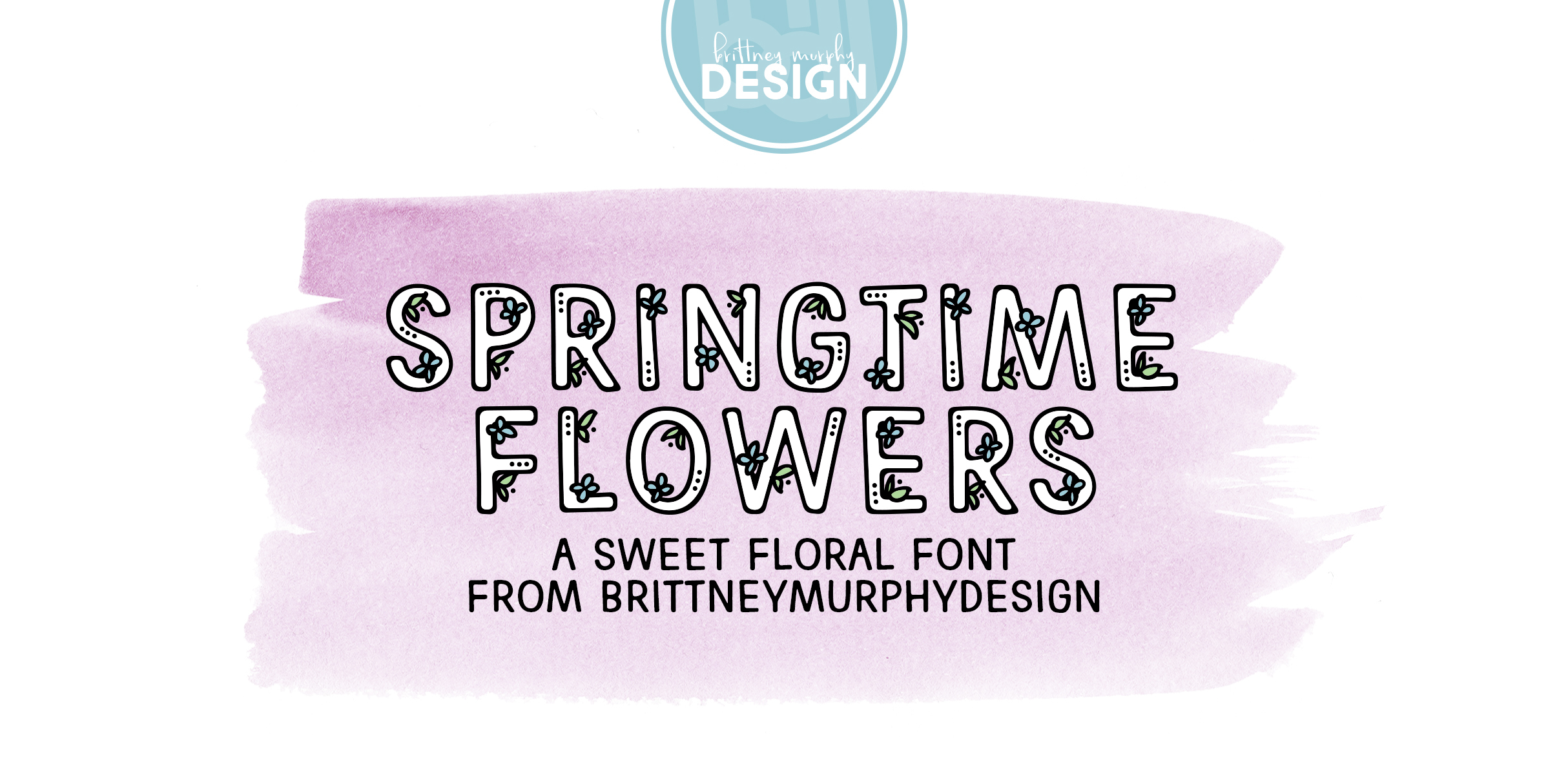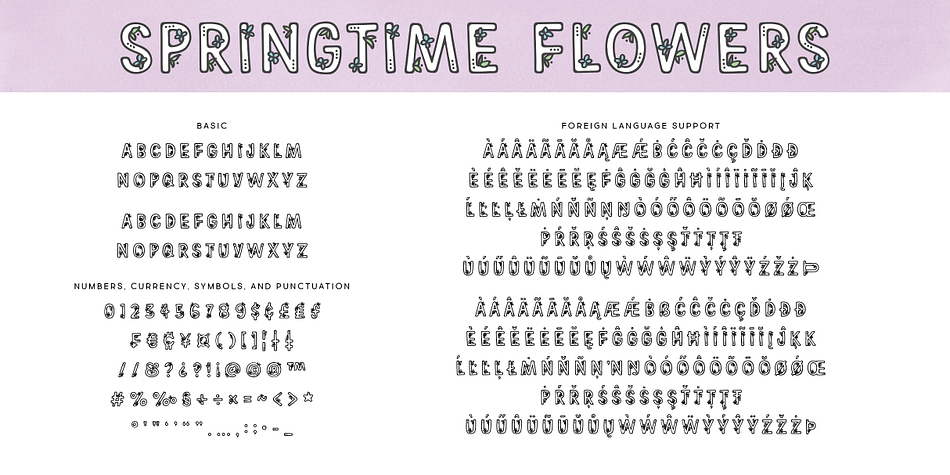
SPRINGTIME FLOWERS
Designed by Brittney Murphy, Springtime Flowers is an arts and crafts, display sans and novelty font family published by Brittney Murphy Design.
Springtime Flowers is a sweet floral font perfect for dressing up your spring designs! Use it posters, valentines or even Mother’s Day cards!
The font has over 300 characters, including many accented characters for multilingual support.